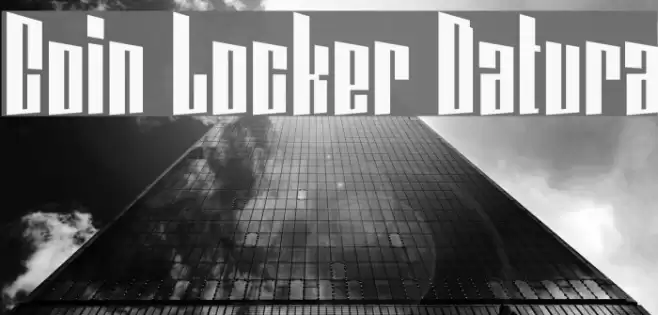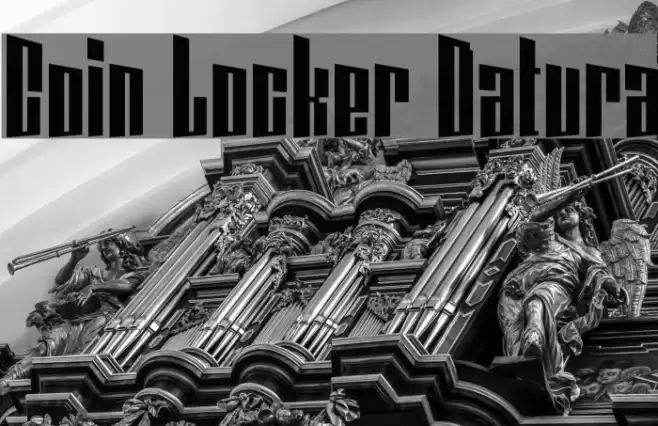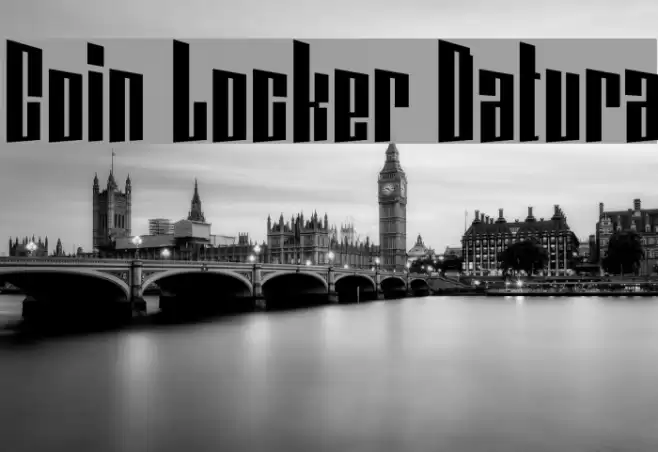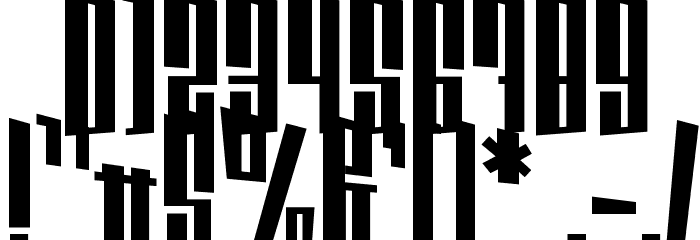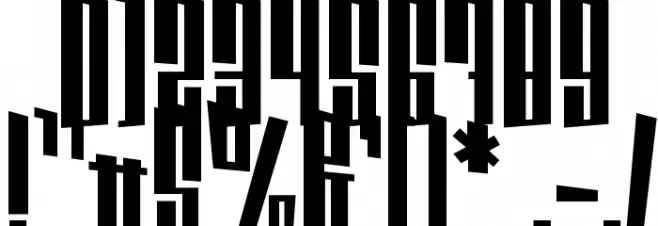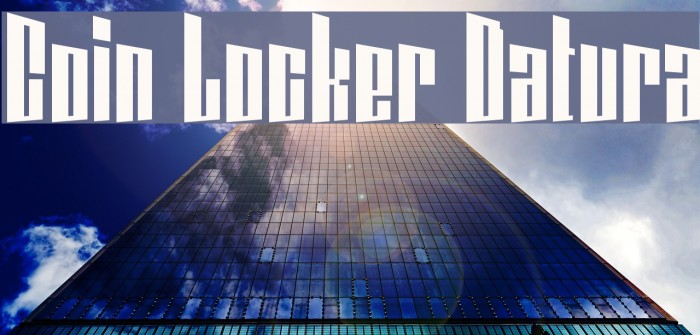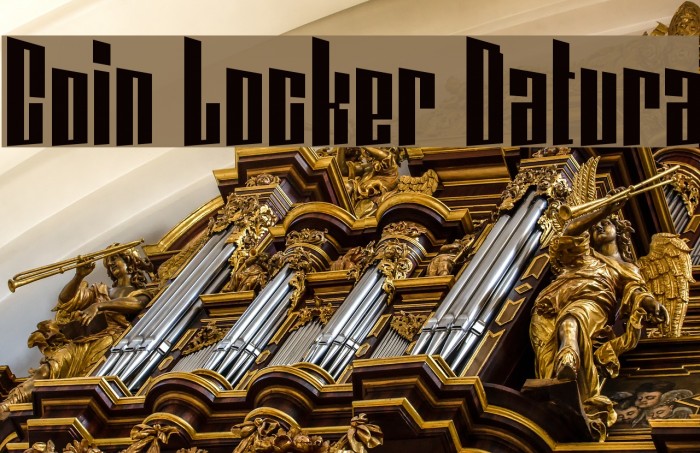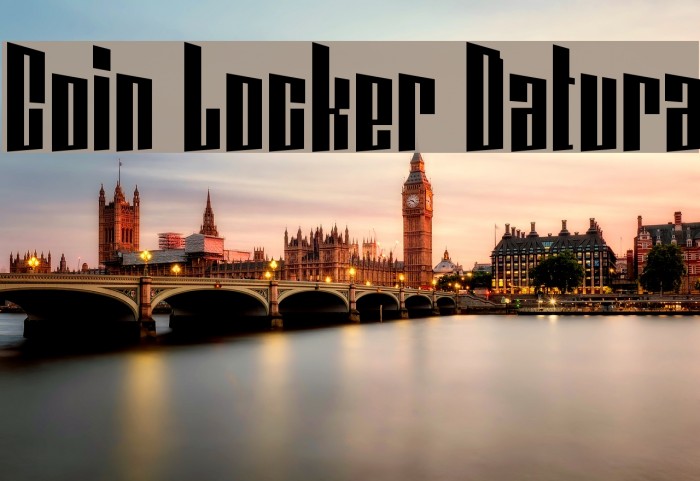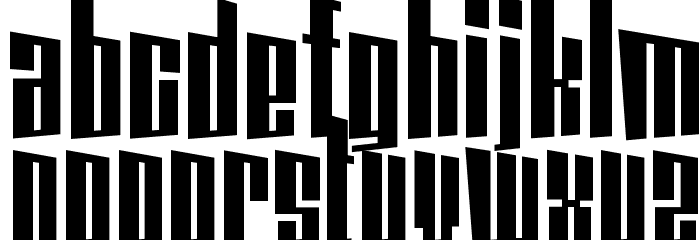
Coin Locker Datura Font
Coin Locker Datura Description
This font features a bold and striking design with a highly condensed structure. The characters are tall and narrow, creating a dramatic and impactful appearance. The geometric shapes and sharp angles give it a modern and edgy feel, making it ideal for attention-grabbing headlines or artistic projects. The uppercase and lowercase letters maintain a consistent style, while the numbers and special characters integrate seamlessly into the overall design. Its unique style is perfect for projects that require a strong visual statement.
A bold, condensed font with geometric shapes and sharp angles for a modern look from Cartoon fonts.
- Proposed Projects: Ideal for posters, album covers, branding, and any project requiring a bold visual impact.
- Character Spacing: Tight